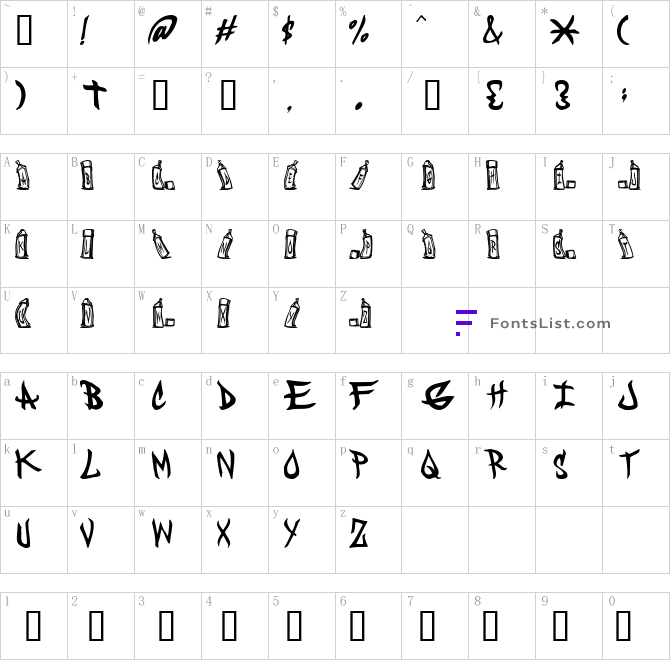
- Font Name:CANS
CANS.ttf is a very beautiful artistic font, CANS.ttf is widely used in the design and printing of various books and pictures,CANS.ttf has a strong visual impact,CANS.ttf is a commonly used font in newspapers, magazines and books, and is used in posters, e-commerce Poster design, store design, logo design, font design and other fields.CANS.